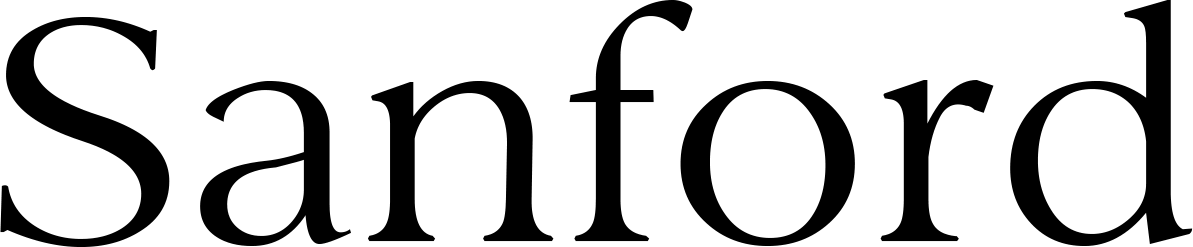
Sanford Font
If you want to make an elegant and serious headline, Sanford might be what you need. This simple serif font has an unornamented design that gives a formal and powerful tone to your text. Because of its simplicity, it can look good on any kind of text but it is the most suitable for formal literature.